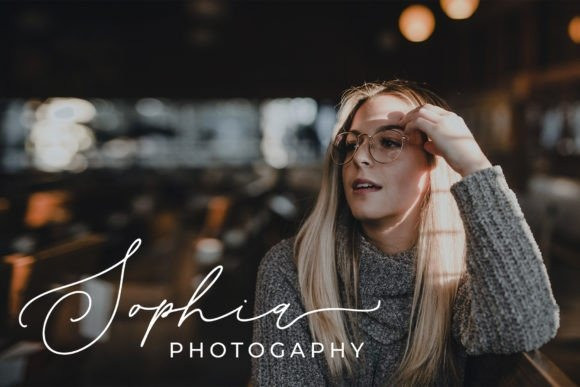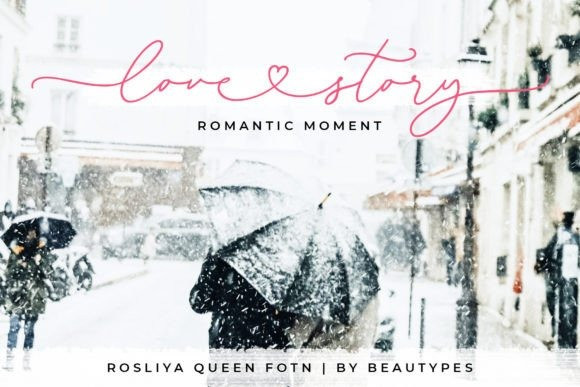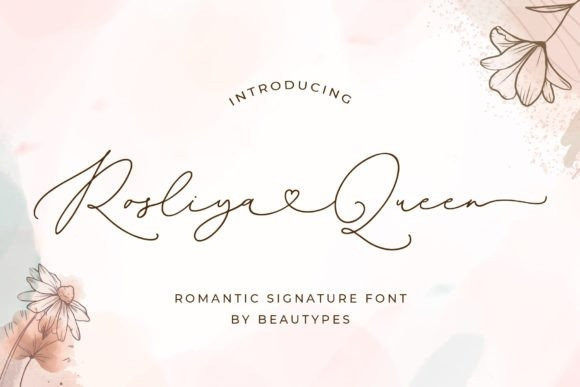
Rosliya Queen Font
Rosliya Queen Font is a gorgeous and elegant signature font. This font is neatly crafted and highly detailed. Whatever the topic, this font will be a wonderful asset to your font library, as it has the potential to enhance any creation.